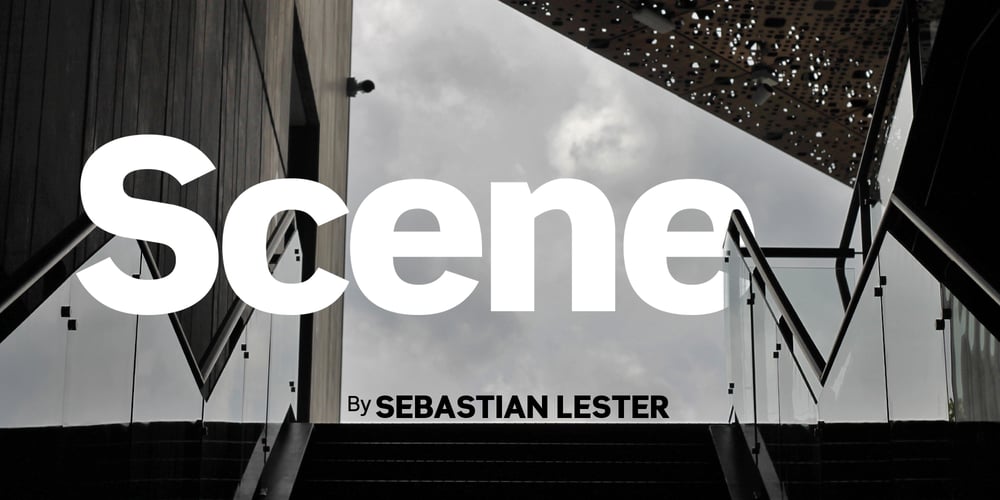
Scene Font Family was designed by Sebastian Lester and published by Monotype. Scene contains 12 styles and family package options. Work on Scene began some time after designer Sebastian Lester joined Monotype Imaging in 2000. Clean, calm, and highly legible — thus the design brief Lester set for himself. With Scene, he wanted to provide graphic designers and creative directors with a suite of fonts that would serve as a strong foundation for identity projects, incorporating what he had learned about on-screen and print legibility. Scene was developed during two years of after-hours and weekend work. The family comes in six weights with matching italics, there is a set of “semi-sans” characters to introduce more expressive word rhythms into headlines and blocks of copy.